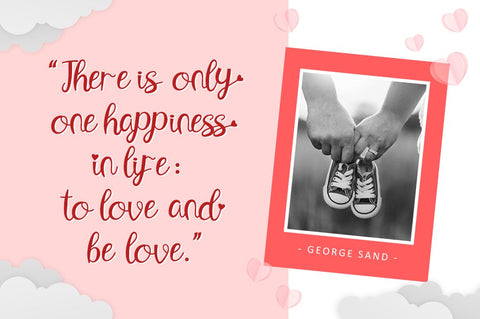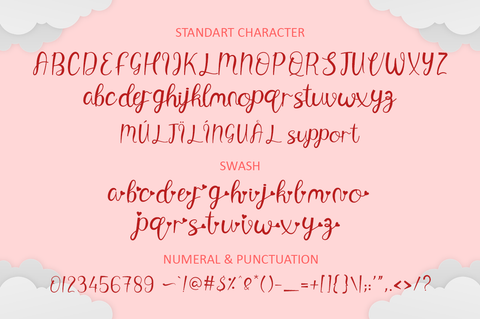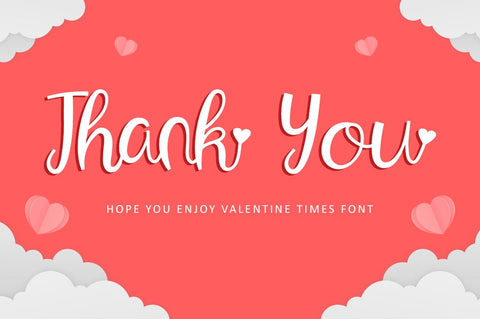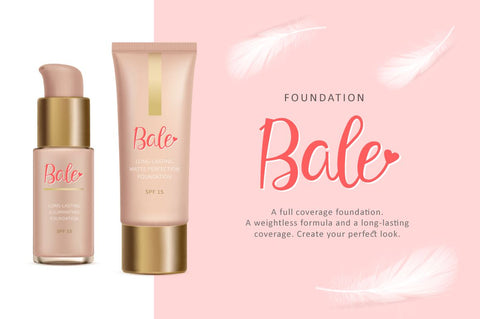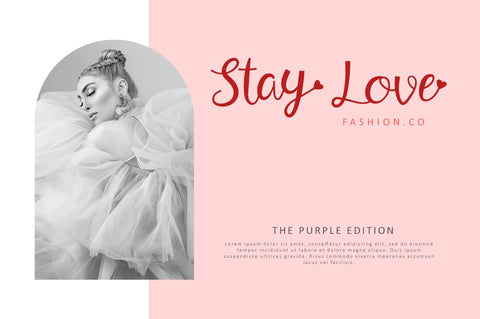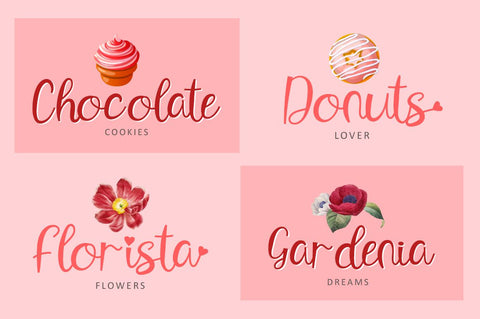
Valentine Rimes - Script Font & Love Swash
Valentine Times is a beautiful handwritten font. Simple and easy to use, this font will be very beautiful if you mix it with your various craft designs.